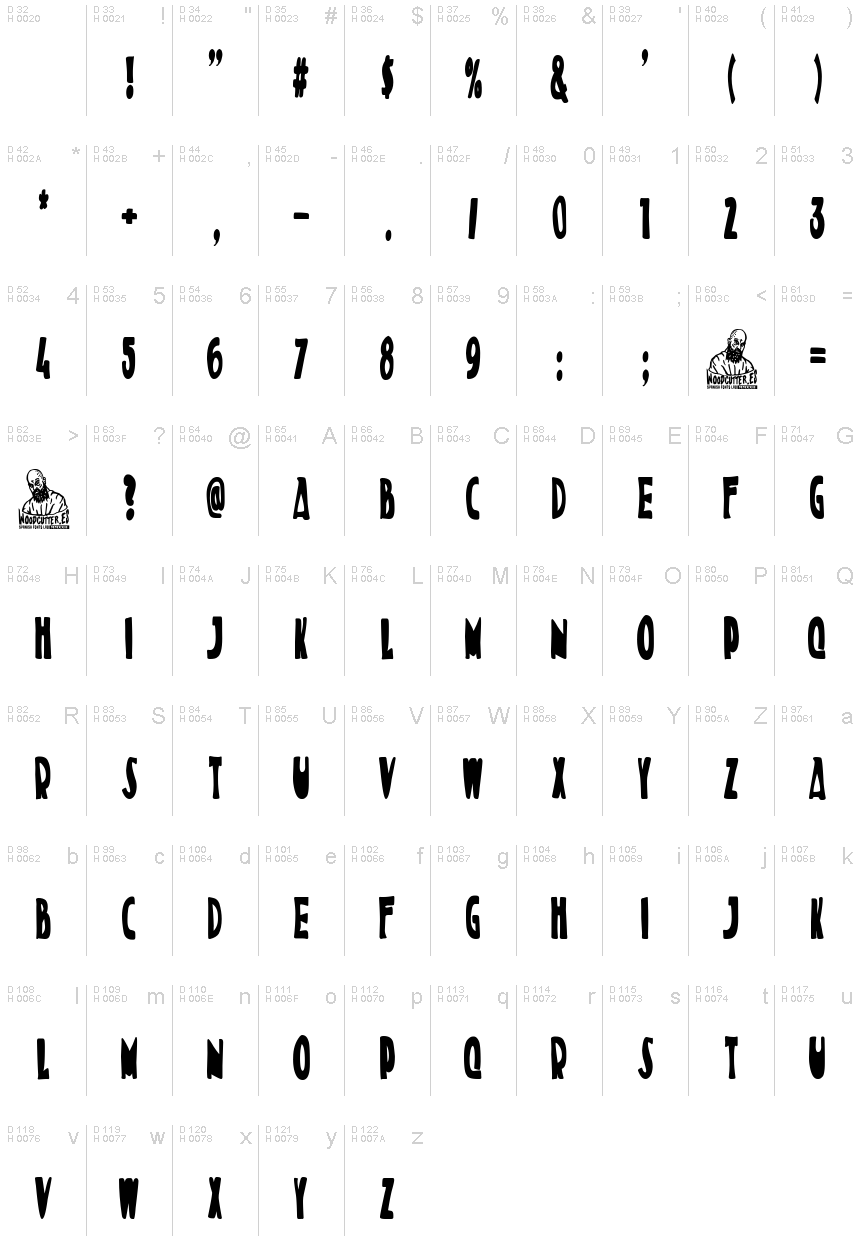
De Ribera Tribute
De Ribera Tribute font, a striking creation by Woodcutter, stands out with its bold assertion and condensed form. This display font exudes a sense of modernity while echoing classic influences, making it perfect for attention-grabbing designs. Its unique characters feature sharp angles and distinctive curves, resulting in a visually compelling typeface that commands presence.
With its strong visual impact, De Ribera Tribute is ideal for diverse applications such as branding, posters, and headlines. Whether used in advertisements or artistic projects, the font’s confident style conveys both creativity and elegance. Embrace De Ribera Tribute to elevate your designs with a touch of sophistication that resonates across various contexts.